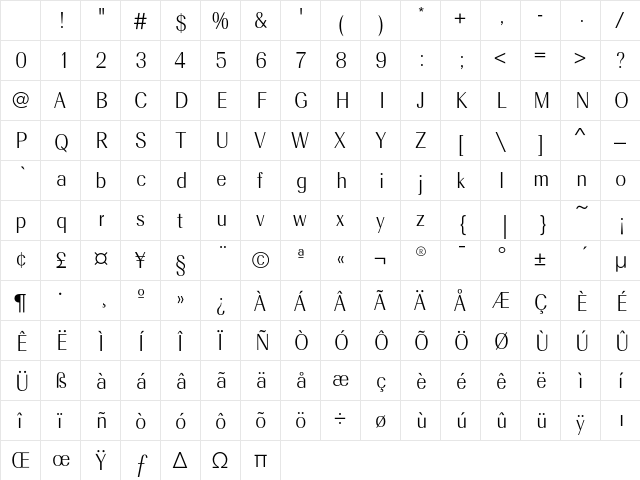
RadiantEFText is a composed and adaptable typeface that performs quietly and consistently across a wide range of design contexts. Its slender proportions lend an understated elegance to any composition.